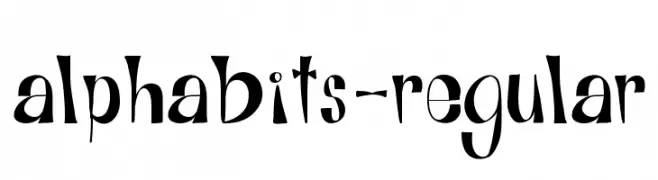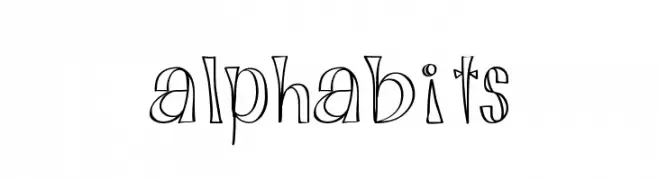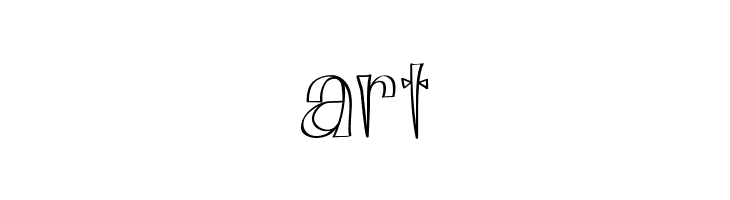
• Alphabits
A playful, hand-drawn font with tall, narrow letters and sketch-like outlines.
• Alphabits-Fat
A bold, playful font with exaggerated curves and high contrast, perfect for creative projects.
• Alphabits-Regular
A playful, whimsical font with exaggerated curves and varying stroke widths.